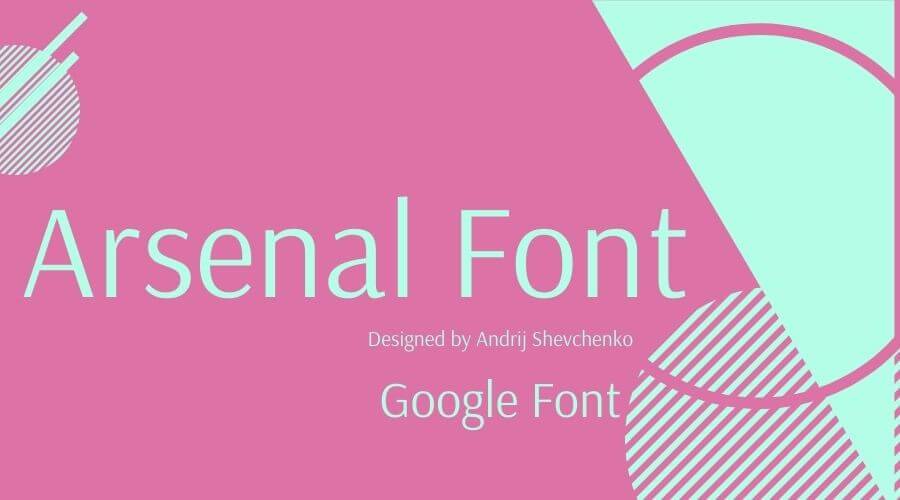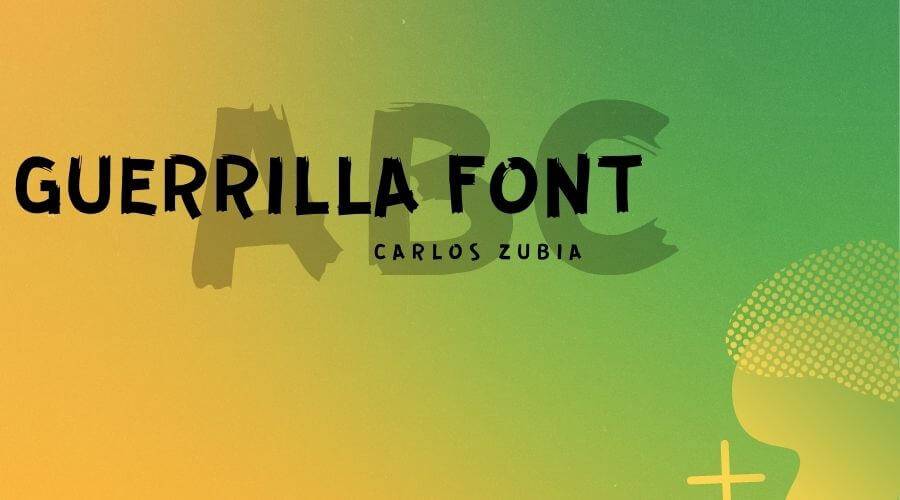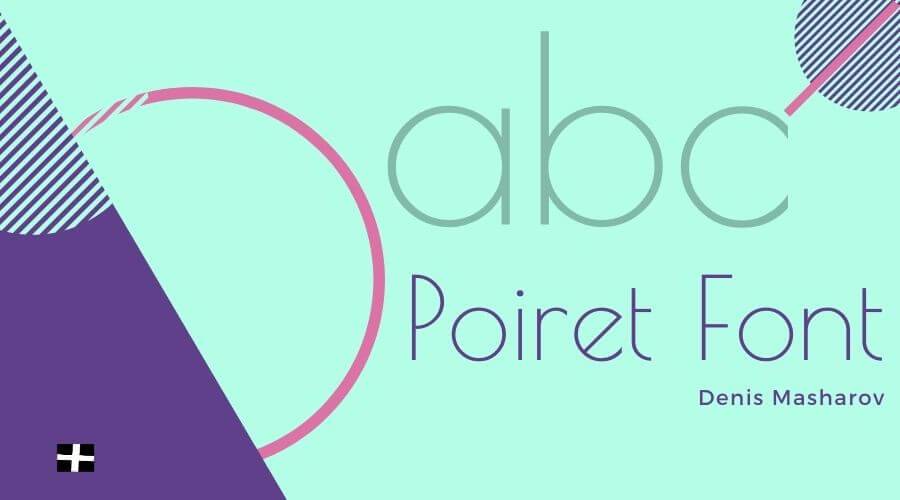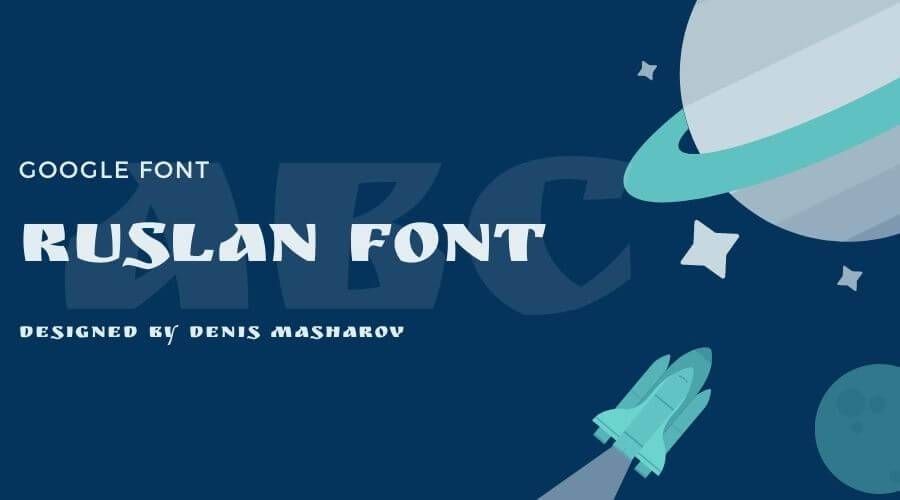
Koliko font
Koliko Font
Koliko is a geometric sans serif with plain curves and a clean, functional structure designed by Alex Frukta. This square based font published through Fontfirma. Font family consists of 3 unique font styles — regular, thin and bold. Koliko is licensed under open font licensed. This amazing font most suitable for headlines of all sizes, but it does work well in a variety of text lengths.
Arsenal Font
Arsenal is a semi-grotesque with traditional forms designed by Andrij Shevchenko and published through google fonts. In 2011 this typeface won the Ukrainian Type Design Competition Mystetsky Arsenal. Arsenal is licensed under the Open Font License that means You can use this font freely in your products & projects – print or digital, commercial or otherwise.
Ruslan Font
Ruslan is a decorative display typeface designed by Denis Masharov. It is also a google font. Denis Masharov design this collaboration with Vladimir Rabdu. With its unique look, Ruslan is very much user friendly and supports uppercase only. You can use this font for personal and commercial use.
Poiret One Font
Poiret Font
Poiret One is a fresh decorative geometric grotesque with a hint of Art Deco and c‘onstructivism designed by Denis Masharov. The font is applicable for large signs, labels, titles, headlines and any type of graphic design on the web, in motion graphics, or in print – from t-shirts to posters and logos. Licensed under the Open Font License, Poiret One is very much unique.
Guerrilla Font
Guerrilla is a little bit rough, a bit graffiti and a little bit brush flavored free font designed by Carlos Zubia from Chihuahua, Mexico. Based on geometric forms, it has stylish lines and graceful curves. This font has been featured in FontFabric and it is 100% free to use for personal and commercial purpose.